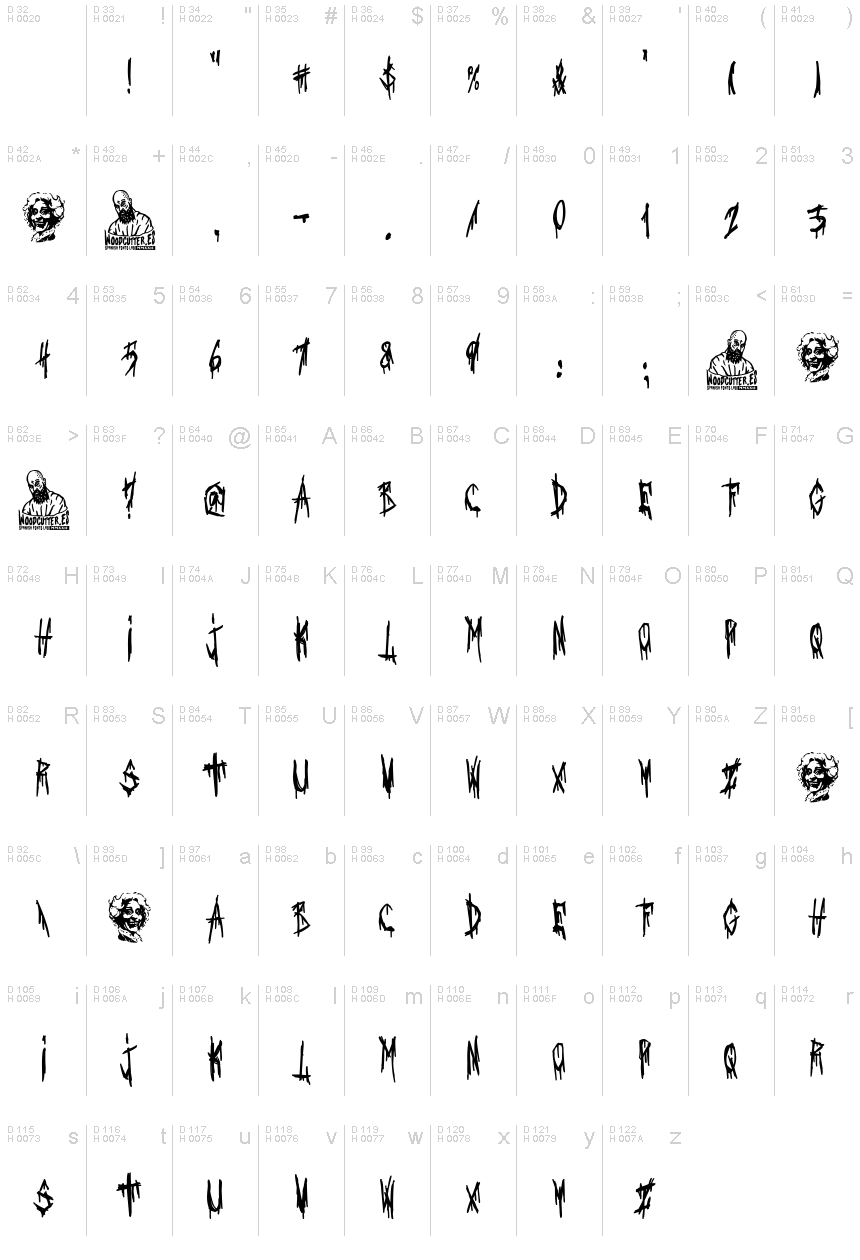
Mother's Day in Spain
Mother's Day in Spain by Woodcutter is a font that demands attention. With its ominous, jagged letterforms and unsettling, scary aesthetic, this display font exudes an aura of dark intensity. The condensed width adds a sense of tension, compressing the dramatic strokes into a compact, almost claustrophobic composition.
This font would be a captivating choice for horror-themed designs, from book covers to movie posters, where its haunting, visceral quality could heighten the sense of unease and suspense. Its bold, expressive style could also lend itself well to album art or merch for heavy metal and punk bands, embodying the raw, rebellious spirit of those genres.